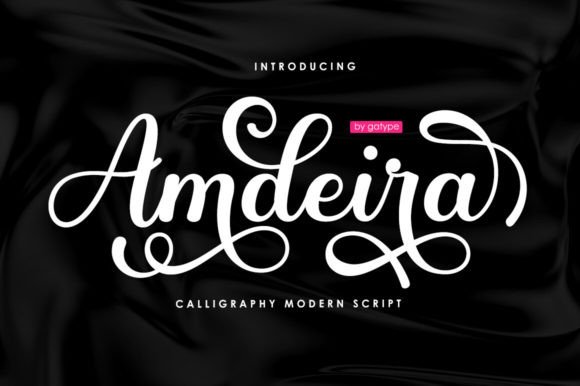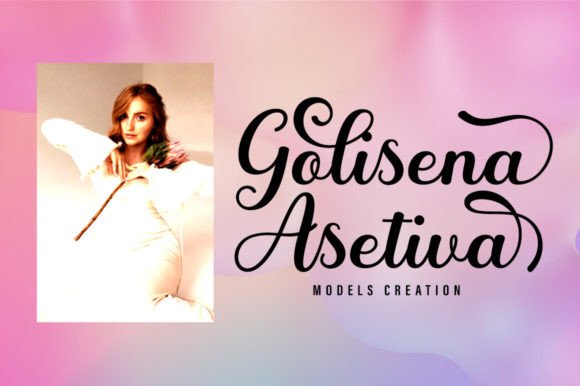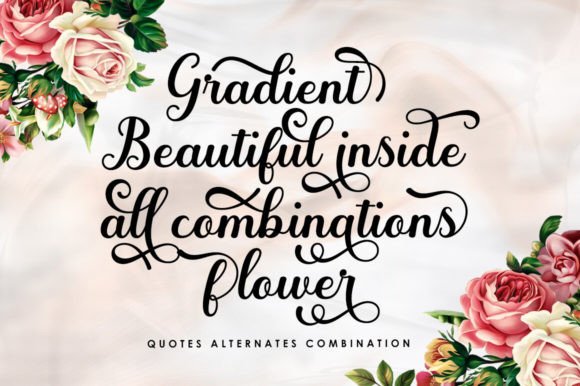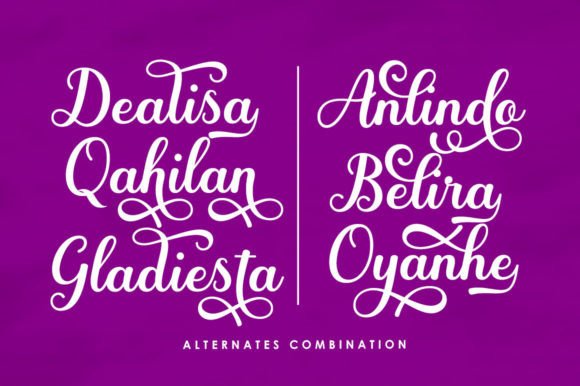
Amdeira Font
About the Amdeira Font
Explore the possibilities with Amdeira Font, a font that offers both beauty and functionality. Amdeira Script is a bold-style script font. elegant, simple, and slightly vintage look. This font is equipped with open types such as ligature, Stylistic Sets, and Last alternative. In addition, this font also supports multiple languages.
Amdeira Font Example